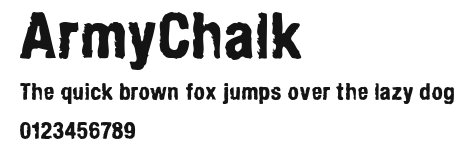
ArmyChalk Preview
• Font Name: ArmyChalk
• Full Font Name: ArmyChalk
About ArmyChalk.ttf
ArmyChalk.ttf is a modern, elegant sans-serif font designed for ultimate readability and visual harmony. Perfect for branding, headlines, web design, and print materials.